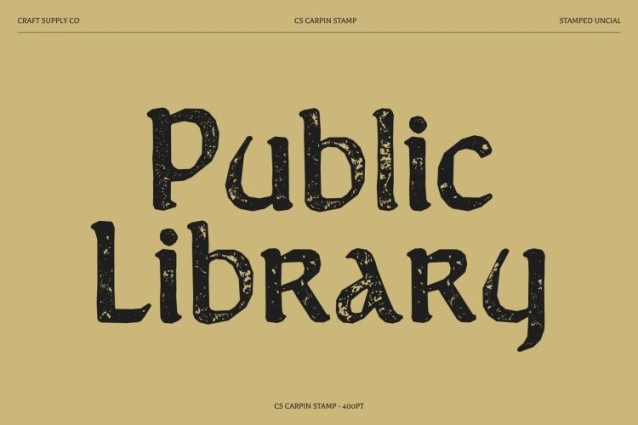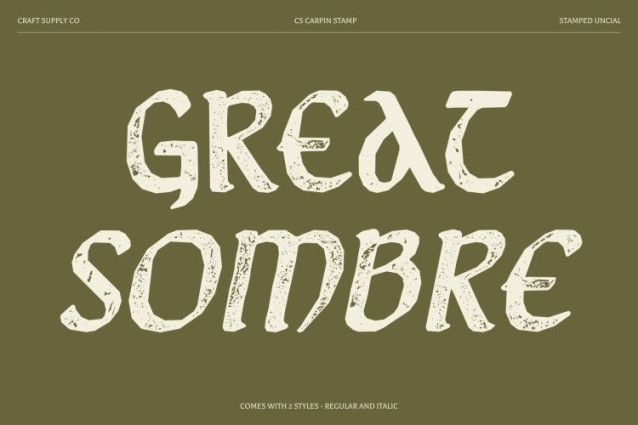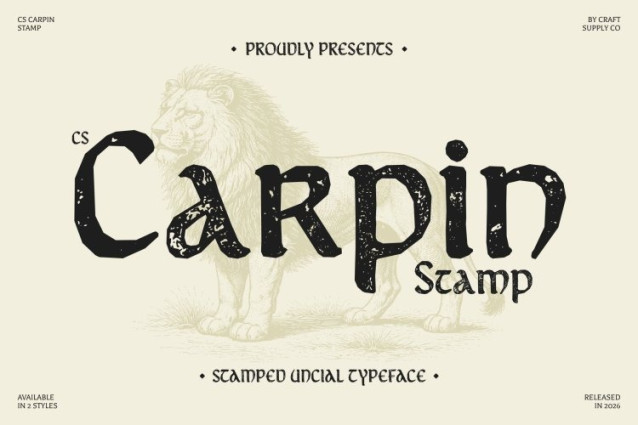
CS Carpin Stamp Font
CS Carpin Stamp Font – This is a captivating display font inspired by the timeless beauty of medieval uncial script. Its rounded, flowing letterforms echo the artistry of ancient manuscript traditions, bringing the elegance of historical calligraphy into contemporary design. Enhanced with a subtle stamp effect, the font gains a textured, vintage quality that evokes the feel of aged ink impressions and traditional printmaking.
Historical Character with Distressed Details
The soft, circular shapes typical of uncial lettering are complemented by delicate distressed textures that add depth and authenticity. The stamp effect introduces slightly worn edges and irregular ink patterns, giving the typeface a handcrafted appearance reminiscent of antique documents and medieval printing techniques.
Authentic Presence for Historical Designs
This font carries a strong sense of heritage and authenticity, making it ideal for projects that embrace historical themes. Its graceful curves and balanced proportions create a refined yet expressive typographic voice that feels both classic and artistic.
Perfect for Invitations, Book Covers, and Decorative Typography
Ideal for historical-themed branding, book covers, elegant invitations, certificates, decorative prints, and signage, enhances designs with its blend of medieval elegance and vintage texture. The combination of uncial tradition and stamped character ensures a distinctive typeface that feels timeless, artistic, and rich with historical charm.